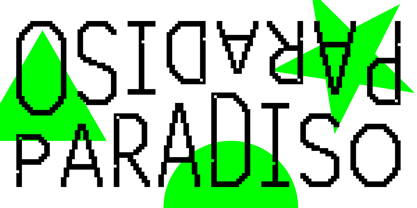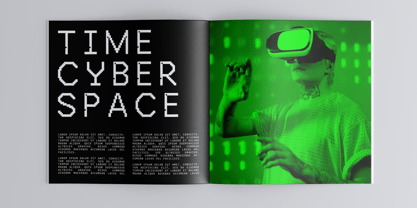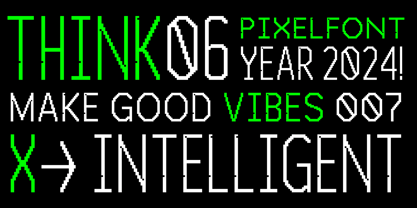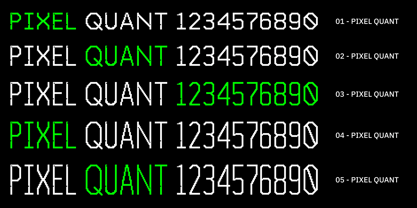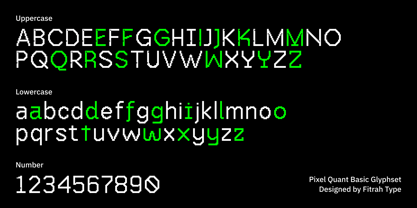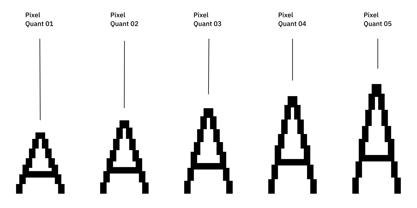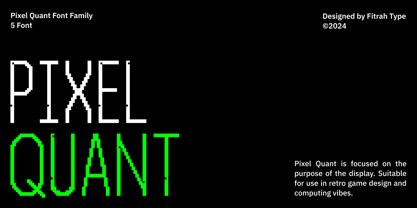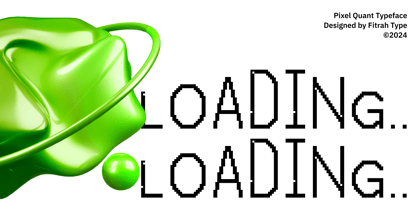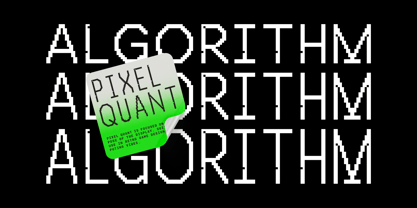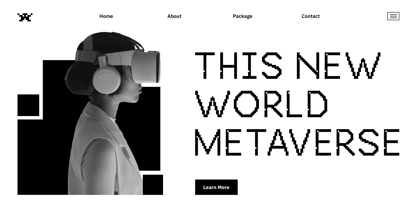
Pixel Quant
by Fitrah Type
The Pixel Quant Font Family was designed by Moch Fitrah Hidayat and published by Fitrah Type. Pixel Quant contains 6 styles and family package options. More about this family
Introducing Pixel Quant, the perfect font for retro game design and computing enthusiasts! This unique typeface features a blend of uppercase and lowercase characters, making it versatile for various creative projects. Its design is inspired by classic bitmap fonts, capturing the nostalgic essence of vintage gaming and computing aesthetics.
Pixel Quant delivers a distinctive look that stands out. Embrace the charm of the past while creating something fresh and exciting with this font!
The entire typography has been designed to work on large sizes and display purposes such as branding, titles, thumbnails, posters, and animation. This font is available in 5 styles.